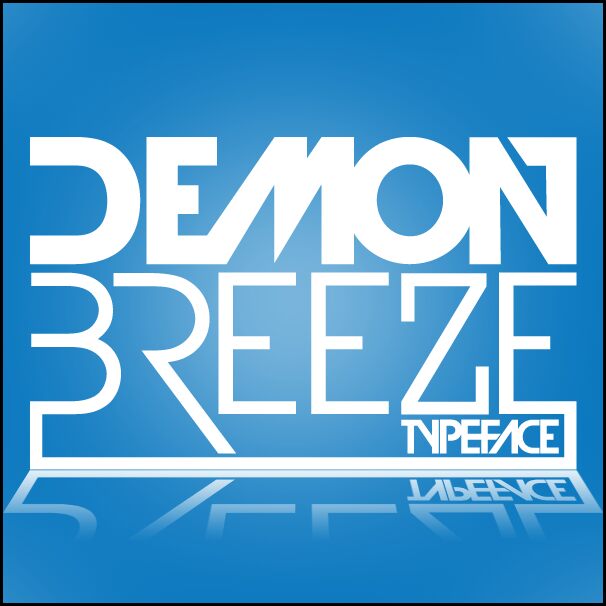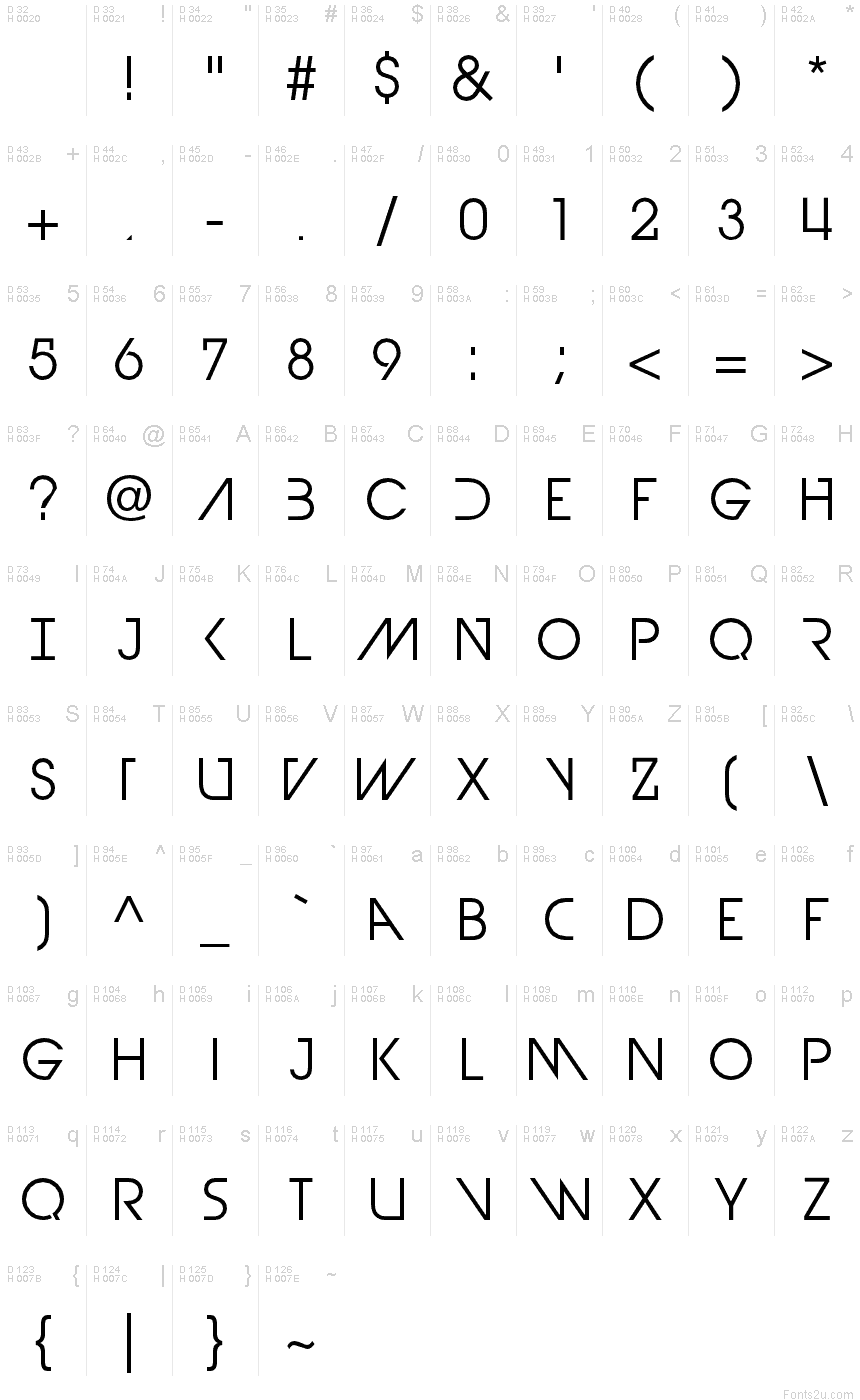
DevilBreezeBook
DEVIL BREEZE..Was designed based on the variations and similarities of AVANT GARDE Typeface (created in the era of the 60s by Herb Lubalin and Tom Carnese).
Devil Breeze